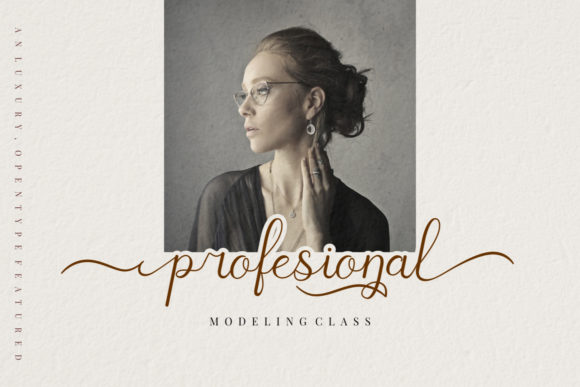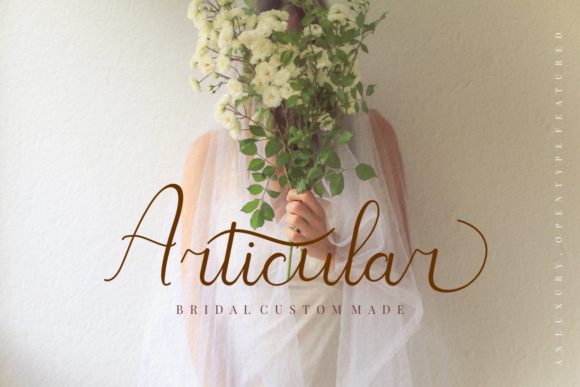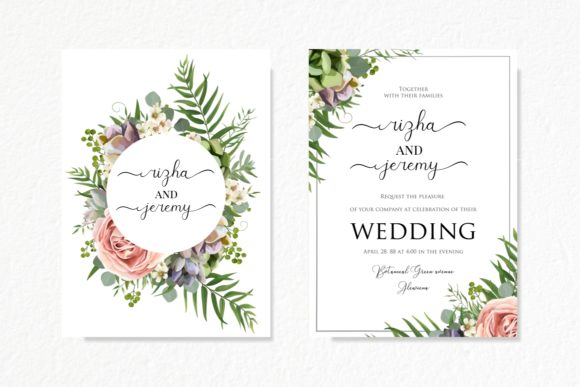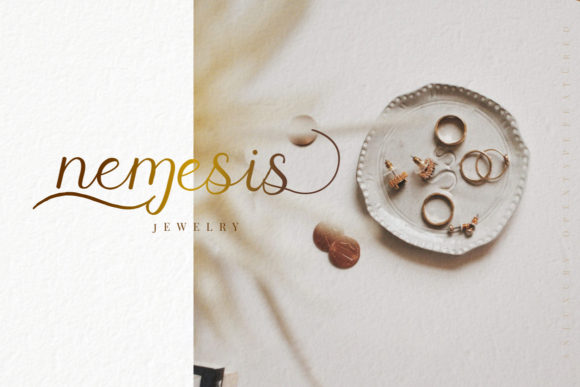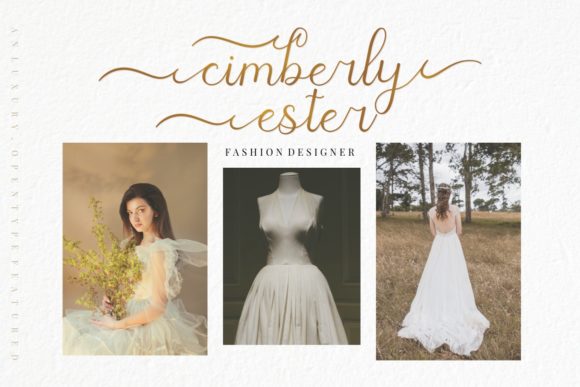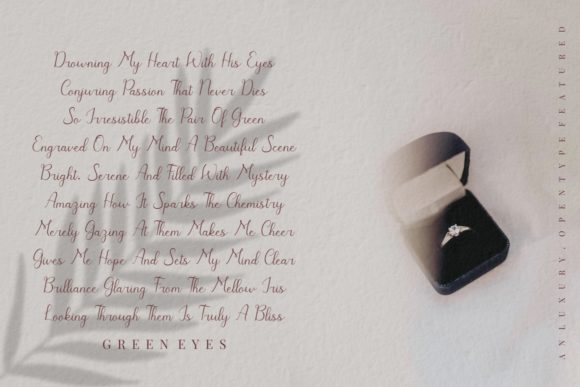
Introduction to Maysile Font
Remember that moment when you’re working on a creative project, and you’re searching for the perfect font to bring your idea to life? You scroll through countless options, but none of them seem to capture the essence of your vision. That’s where the Maysile Font comes in – a delicate, elegant, and flowing handwritten font that will transform your designs into breathtaking works of art.
As a valuable design resource, Maysile Font is a high-quality addition to any creative project. Its beautiful and well-balanced characters make it a versatile choice that matches a wide pool of designs, from elegant invitations to whimsical illustrations. And the best part? It’s available for free download, so you can add it to your design arsenal without breaking the bank.
Key Features of Maysile Font
- High-quality design resource ideal for creative projects, offering a unique and stylish touch.
- Includes a range of characters, including uppercase and lowercase letters, numbers, and special symbols.
- Designed with a modern aesthetic, making it perfect for use in various creative projects, from logos to typography.
Honest Review: Maysile Font
I recently had the chance to explore the Maysile Font, and I must say it’s a fantastic design resource. The high quality of this font is immediately apparent, with crisp lines and a clean, modern aesthetic.
What works well is the sheer versatility of the Maysile Font. It’s perfect for a creative project that requires a professional touch without being too over-the-top. The transparent background makes it easy to overlay on images or videos, adding an extra layer of depth to your design.
- ✨ Highly customizable, with multiple styles and weights to choose from
- ✨ Excellent for both digital and print media
- ✨ Works well with a variety of design software
One limitation of the Maysile Font is that it may not be suitable for very small text sizes, as the letters can become difficult to read.
Overall, I’m really impressed with the Maysile Font. It’s a great free download that’s perfect for designers looking to add a touch of sophistication to their creative projects.
While it may have a few limitations, the Maysile Font is definitely worth checking out for any design professional or enthusiast.
Getting the Most Out of Maysile Font
To get the most out of the Maysile Font, use it in combination with transparent backgrounds to create a clean and modern design. Experiment with different font sizes, colors, and styles to achieve a unique visual effect. You can also pair the Maysile Font with other design elements, like icons or graphics, to create a cohesive and engaging design.
The Maysile Font is suitable for various creative projects, including:
Logo design
Business cards
Brochures
Presentations
Documents